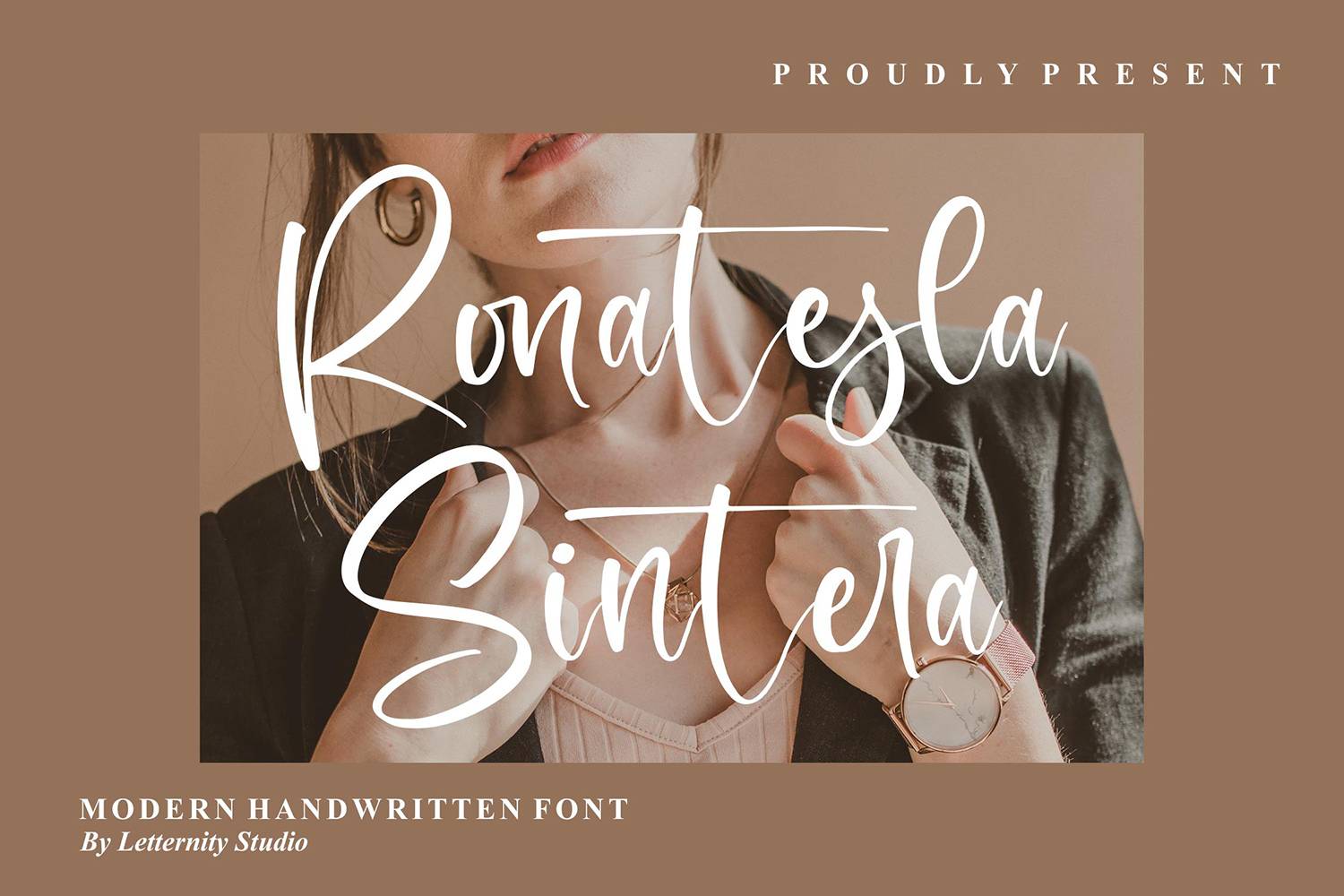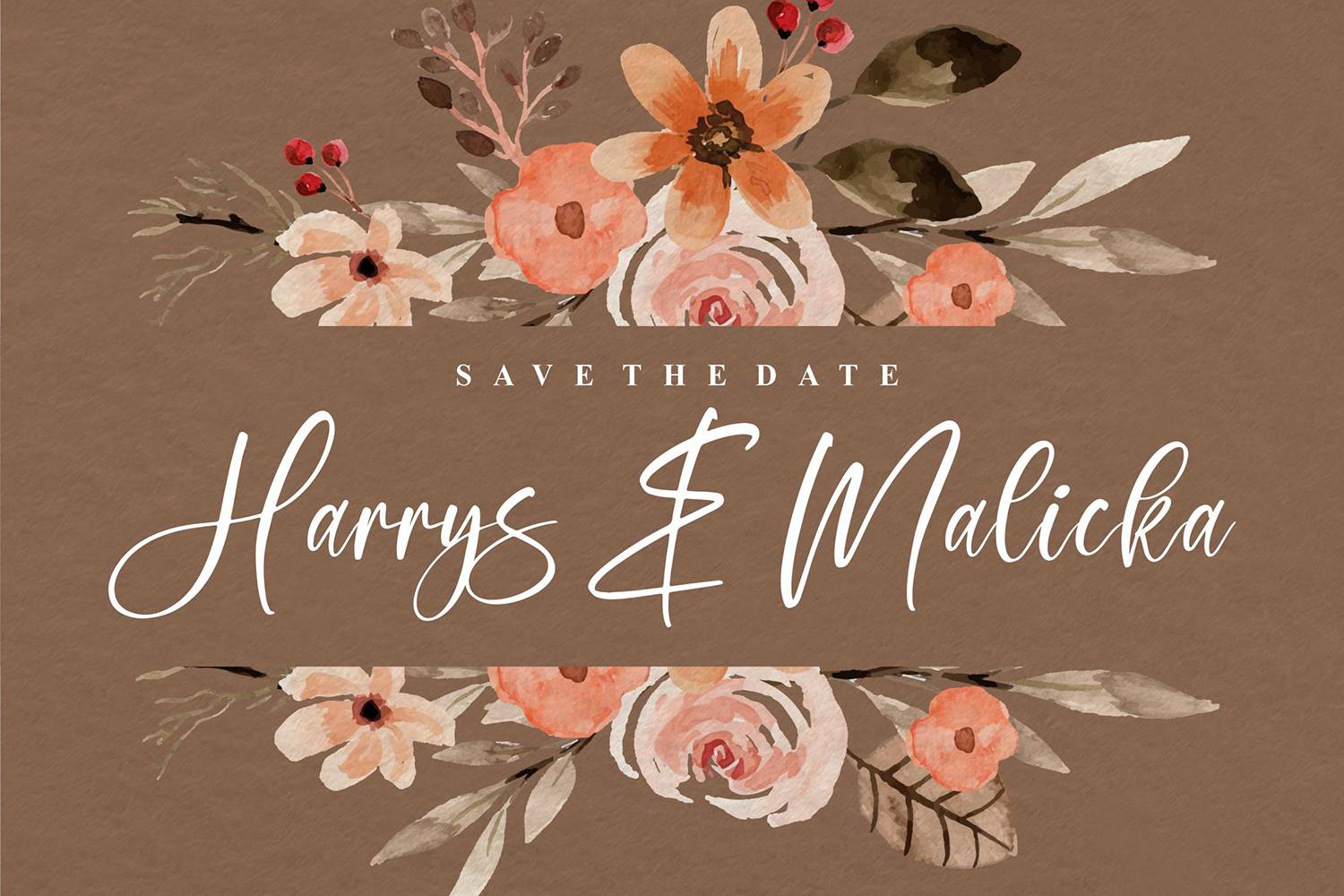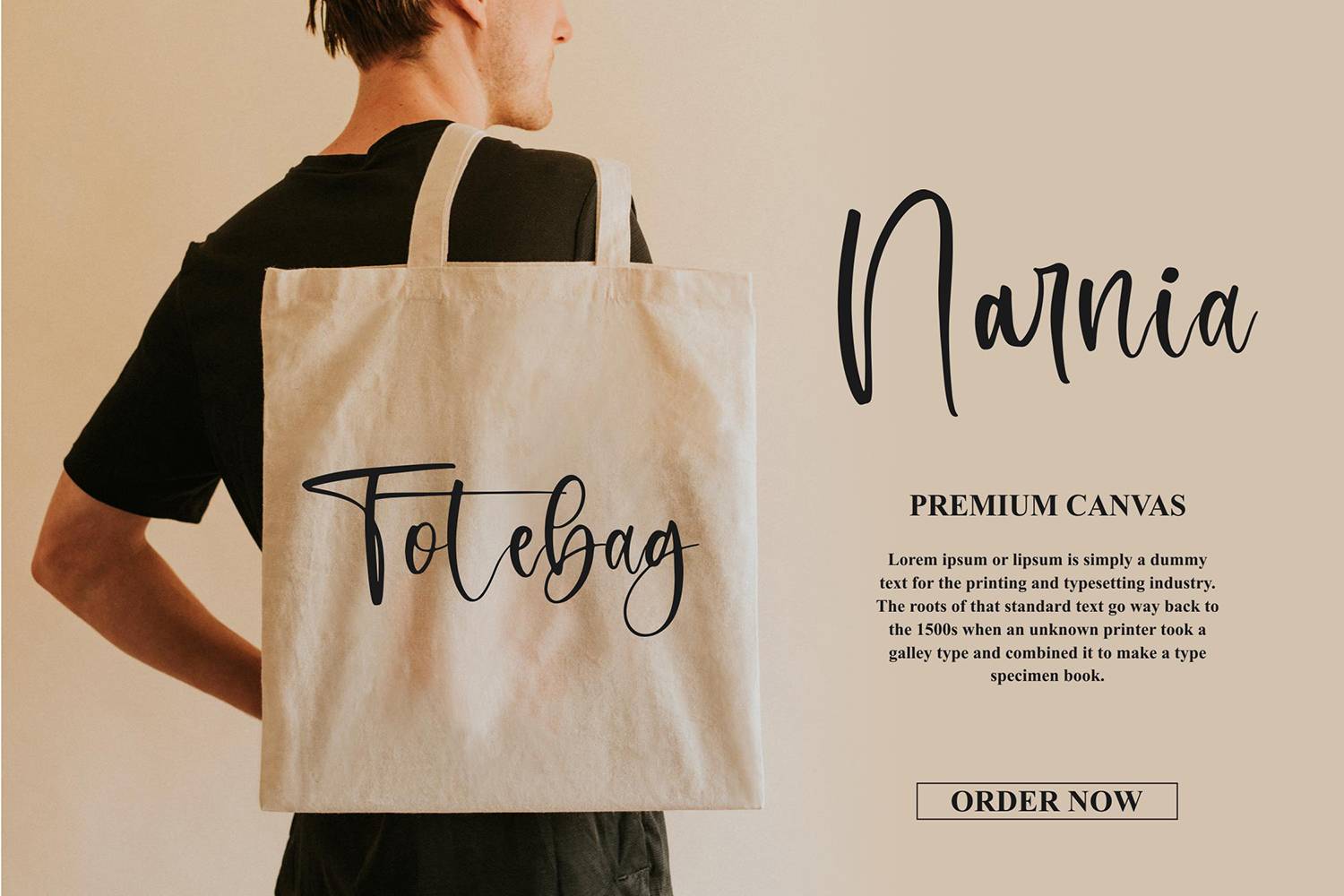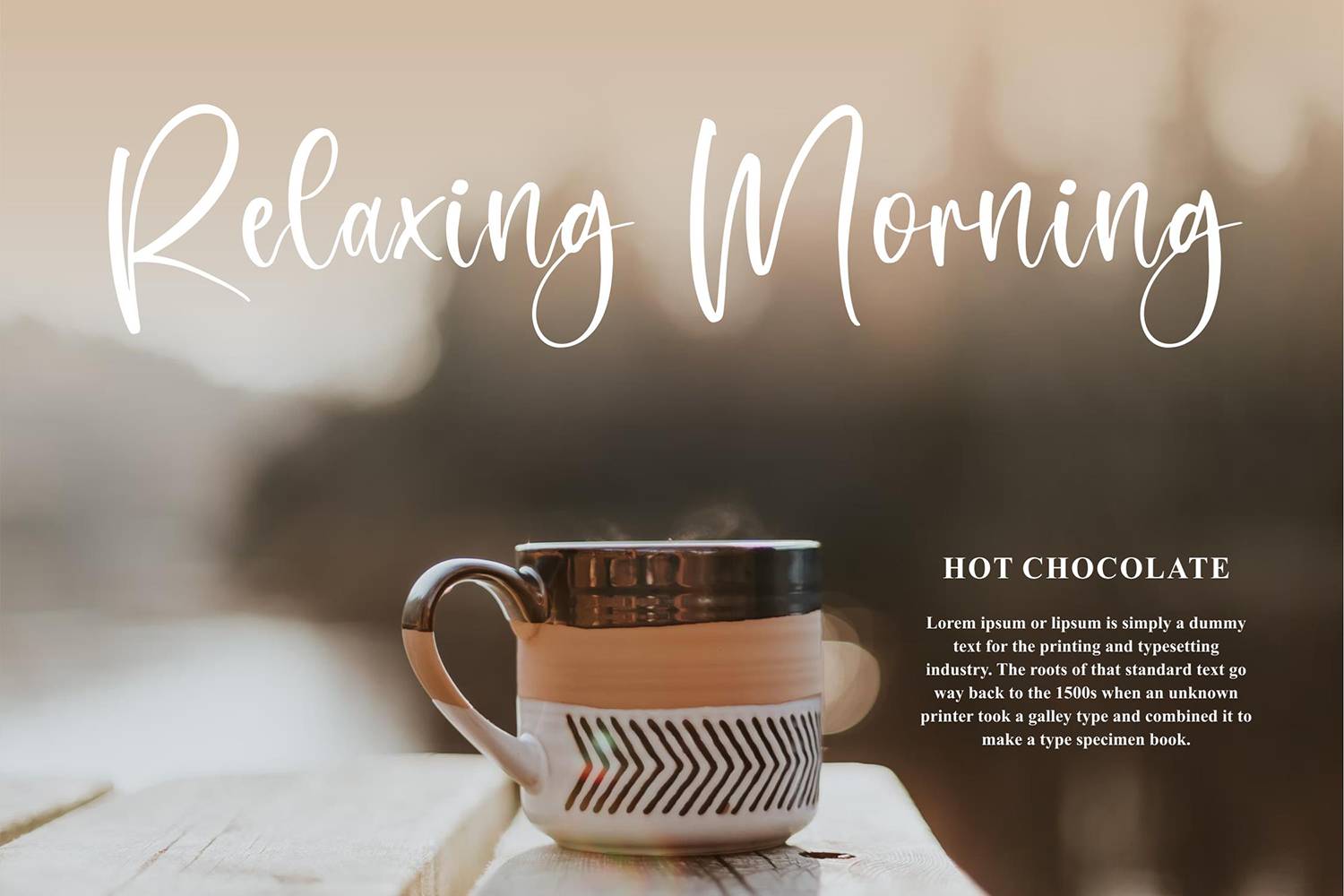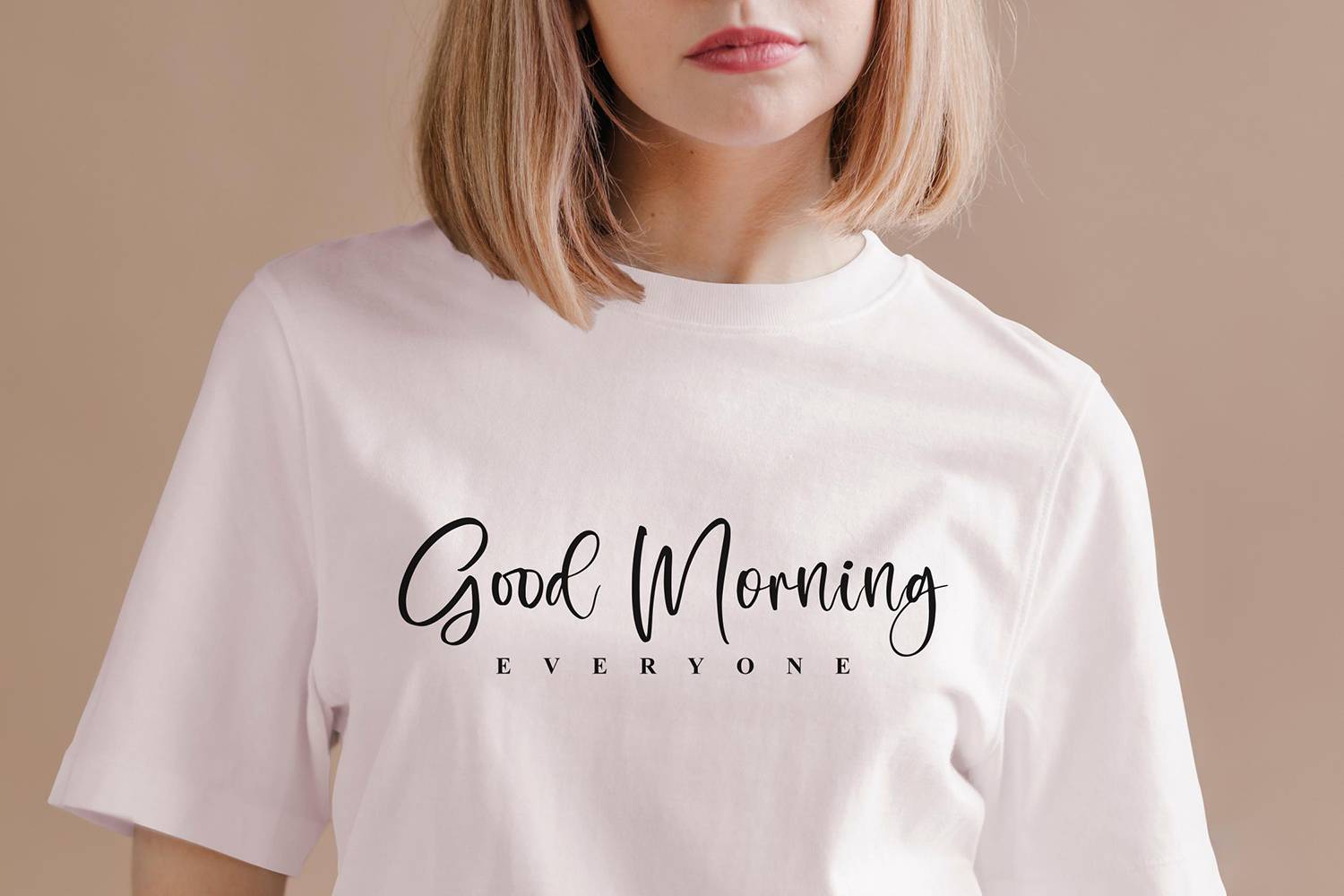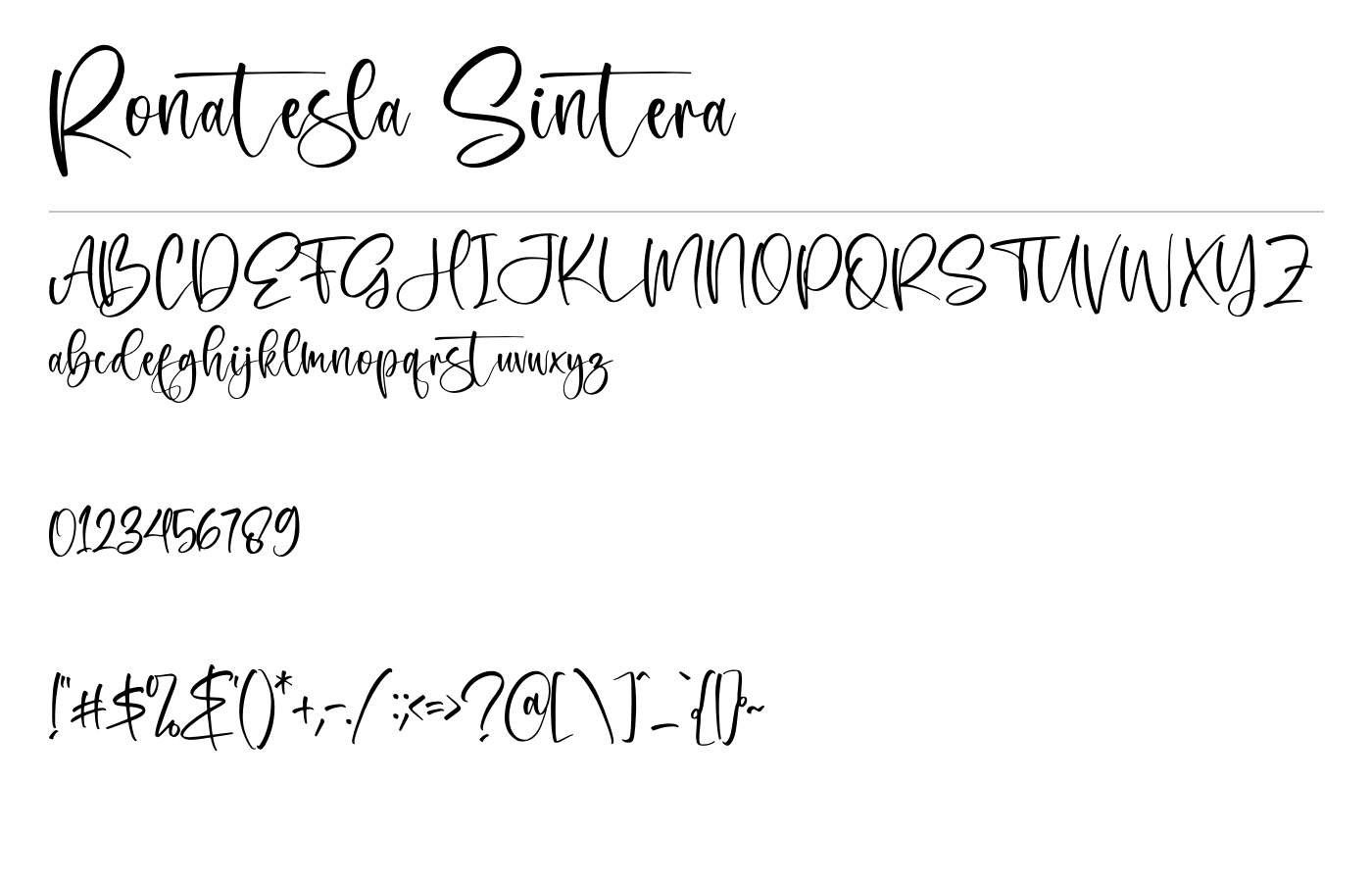
Ronatesla Sintera is a playful and elegant handwritten script font with a light, airy feel created by its slender strokes and generous spacing. It features unique letterforms with flowing curves and a casual, yet sophisticated vibe, making it perfect for creative branding, invitations, and fashion-related design projects. This font works especially well in headlines and logos where a personal, artistic touch is desired.
Ronatesla Sintera Font
About Ronatesla Sintera Font